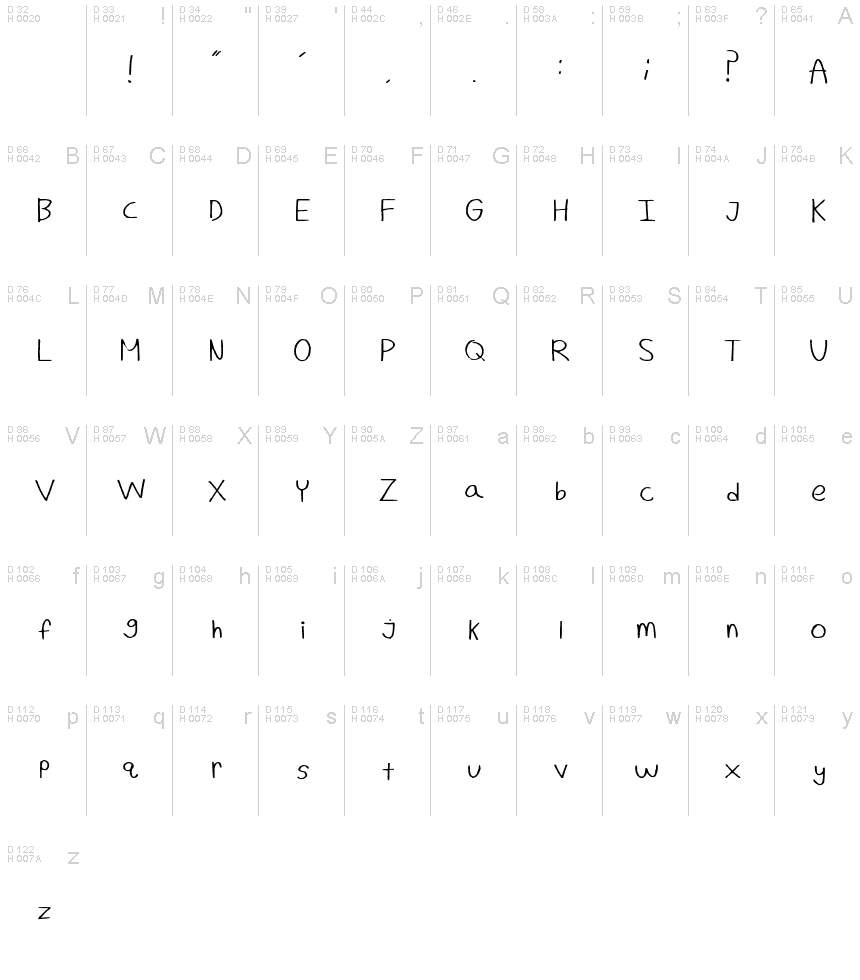
Kennykillsmen Regular
Introducing Kennykillsmen font - a casual handwritten style that adds a personal touch to any project. Designed to bring life and character to your creative endeavors, this font is perfect for playful branding, social media graphics, invitations, and more. With its smooth curves and natural flow, Kennykillsmen evokes a sense of ease and approachability that's sure to capture your audience's attention. Whether you're looking to convey friendliness or add a touch of whimsy, this font is perfect for any project where you want to infuse some personality!